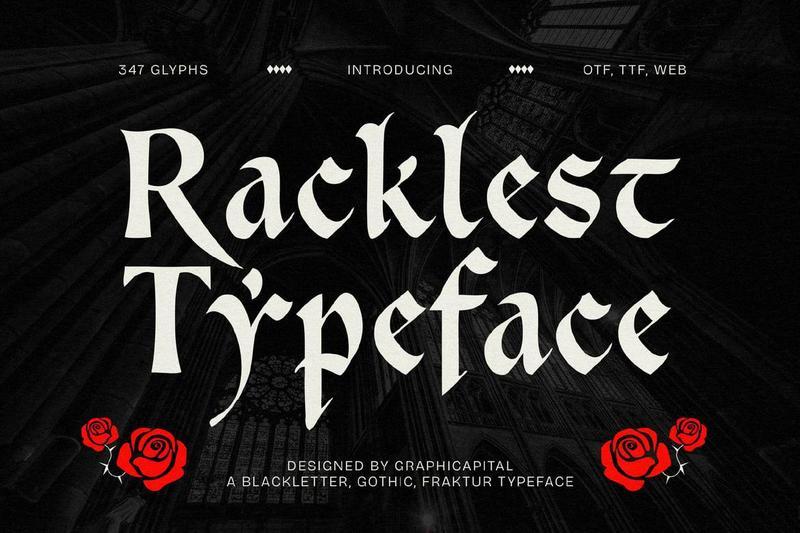
Racklest is a gothic-style blackletter font with bold angles and unique detailing. Ideal for posters, logos, and branding, it conveys mystery, edge, and strong character.
Ideal for branding, posters, headlines, packaging, album art, game visuals, and promotional designs. It adds personality to any creative project and helps your message stand out effortlessly.